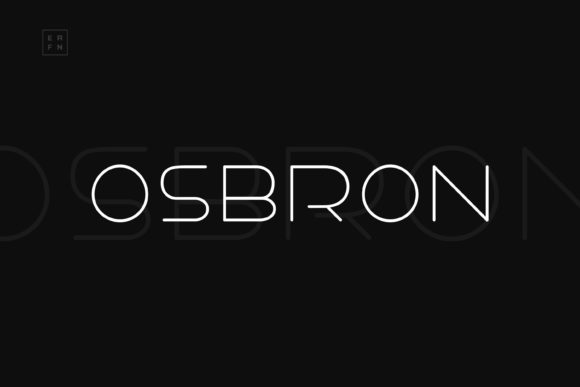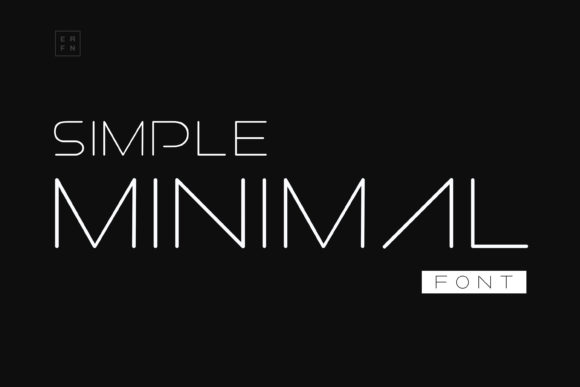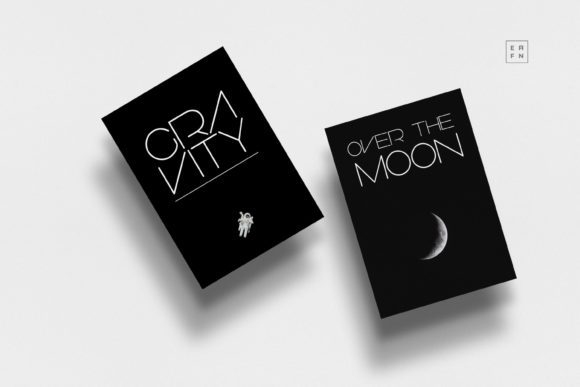
Introducing Gravity Font: Elevate Your Designs with a Modern Twist
Gravity Font is a stunning, minimal, and modern display font designed to make your creative projects stand out. With its sleek lines and contemporary aesthetic, this versatile font can be paired with an incredibly large set of projects, making it an essential addition to your design toolkit. In this article, we’ll explore the features, benefits, and uses of Gravity Font, and how it can elevate your designs to new heights.
What is Gravity Font?
Gravity Font is a carefully crafted display font that embodies the perfect blend of simplicity and sophistication. Its clean and minimalist design makes it an excellent choice for designers and crafters looking to add a touch of modernity to their projects. The font’s sleek lines, subtle curves, and precise lettering create a visually appealing aesthetic that’s sure to capture attention.
Key Features of Gravity Font
- Minimal and Modern Design: Gravity Font boasts a clean and contemporary design that’s perfect for creating stunning visual effects.
- Versatility: This font can be paired with a wide range of projects, from branding and advertising to packaging and digital media.
- Highly Legible: Gravity Font is designed to be easily readable, even at smaller sizes, making it perfect for use in various design applications.
- Wide Range of Uses: From headings and titles to logos and slogans, Gravity Font can be used in a variety of creative projects.
Benefits of Using Gravity Font
So, why choose Gravity Font for your design projects? Here are just a few benefits of using this incredible font:
- Instant Recognition: Gravity Font’s unique design ensures instant recognition and sets your brand or project apart from the competition.
- Professional Look and Feel: The font’s modern aesthetic gives your designs a professional and polished look, perfect for businesses and individuals looking to establish a strong brand identity.
- Easy to Pair with Other Fonts: Gravity Font’s versatility makes it easy to pair with other fonts, allowing you to create stunning visual effects and add depth to your designs.
Who Can Benefit from Gravity Font?
Gravity Font is an excellent addition to any designer’s toolkit, regardless of their specific niche or industry. Here are just a few examples of professionals who can benefit from using Gravity Font:
- Graphic Designers: Add a touch of modernity to your branding, advertising, and packaging designs with Gravity Font.
- Digital Media Professionals: Use Gravity Font to create stunning visual effects in your digital media projects, such as videos, social media graphics, and website headers.
- Crafters and Makers: Add a professional touch to your handmade products, such as labels, packaging, and marketing materials, with Gravity Font.
How to Use Gravity Font
Using Gravity Font is easy! Here are a few tips to get you started:
- Experiment with Different Sizes: Gravity Font looks great at various sizes, so don’t be afraid to experiment and find the perfect fit for your project.
- Pair with Other Fonts: Try pairing Gravity Font with other fonts to create stunning visual effects and add depth to your designs.
| Font Name | Gravity Font |
| Author | Design Stag |
Gravity Font is a game-changing display font that’s perfect for designers and crafters looking to elevate their creative projects. With its modern aesthetic, versatility, and highly legible design, Gravity Font is an essential addition to any design toolkit. Whether you’re a seasoned designer or just starting out, Gravity Font is sure to make your projects stand out and leave a lasting impression.